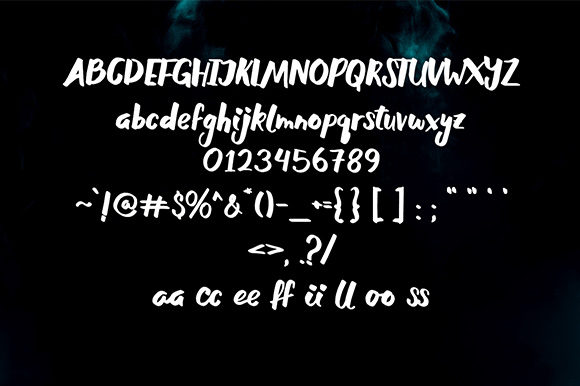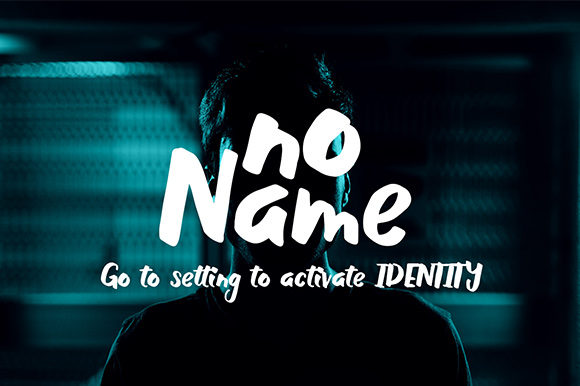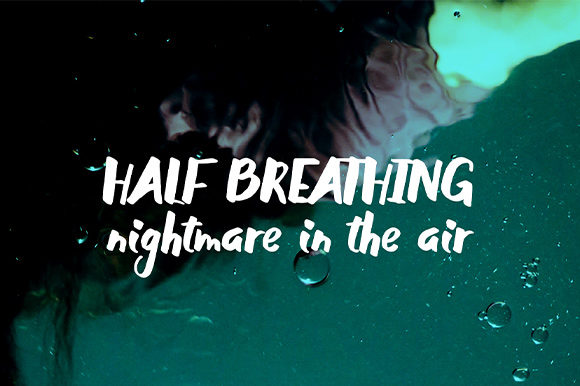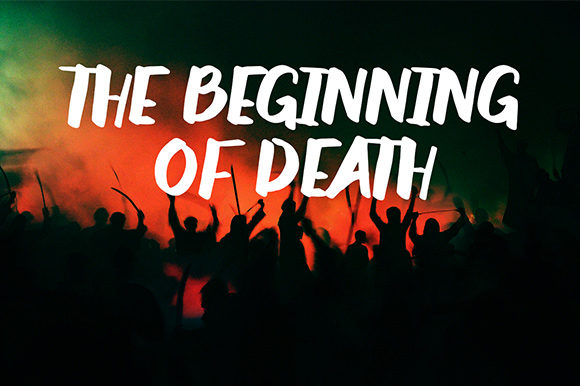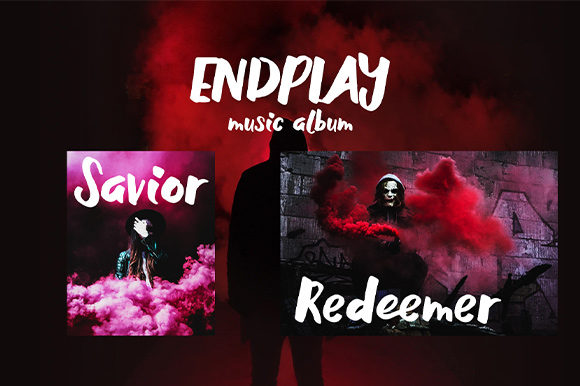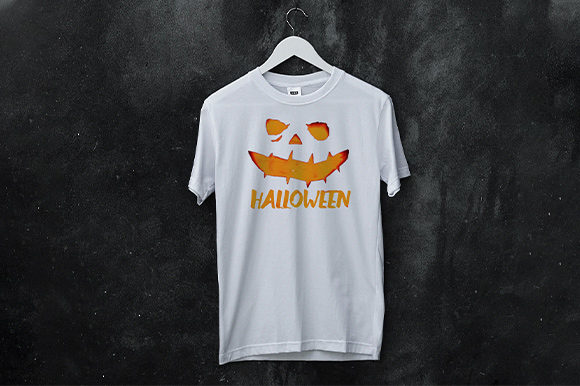
Discover the Elegance of Garotte Font: Elevate Your Designs to New Heights
Are you on the hunt for a font that exudes sophistication, elegance, and a touch of modern flair? Look no further than the Garotte Font. This exquisite handwritten font is meticulously crafted to capture the essence of classy calligraphic influences while maintaining a fresh and contemporary feel. In this article, we’ll dive into the world of Garotte Font, exploring its features, benefits, and the endless possibilities it offers for designers and crafters alike.
The Birth of Garotte: A Masterful Design
Garotte is more than just a font; it’s a masterpiece that combines traditional calligraphic elements with modern design sensibilities. Its creator, with a keen eye for detail and a deep understanding of typographic elegance, has brought forth a font that is both timeless and trendy. Each letter in Garotte is a testament to the art of handwriting, meticulously designed to convey a sense of luxury and refinement.
Classy Calligraphic Influences Meet Modern Sensibilities
One of the standout features of Garotte Font is its ability to strike a perfect balance between classic calligraphy and contemporary design. It boasts flowing lines, elegant curves, and a sophisticated charm that is reminiscent of traditional calligraphic scripts. Yet, it does so with a lightness and airiness that makes it distinctly modern. This unique blend makes Garotte an incredibly versatile font, suitable for a wide range of design projects, from wedding invitations and luxury branding to high-end advertising and editorial content.
Why Fall in Love with Garotte?
So, what makes Garotte Font so special? Here are a few reasons why designers and crafters are falling in love with it:
- Elegance and Sophistication: Garotte brings an unparalleled level of elegance to any project. Its classy appearance can instantly elevate the perceived value and aesthetic appeal of your designs.
- Versatility: Whether you’re working on a digital platform or a print project, Garotte adapts beautifully. It’s perfect for headings, titles, and any place you want to make a statement.
- Readability: Despite its elegant and cursive nature, Garotte maintains excellent readability, making it suitable for both display purposes and longer texts.
- Contemporary Appeal: In a world where design trends are constantly evolving, Garotte’s modern twist ensures it remains relevant and fresh.
Bring Your Projects to the Highest Levels with Garotte
Integrating Garotte Font into your projects is a surefire way to give them a competitive edge. Here are some ideas on how to make the most of this stunning font:
- Branding and Logo Design: Use Garotte to create a memorable brand identity that speaks of luxury and quality.
- Wedding and Event Stationery: Add a touch of elegance to your wedding invitations, menus, and event programs.
- Packaging Design: Stand out on the shelves with sophisticated packaging that features Garotte.
- Digital Content: Enhance your website, blog, or social media graphics with a font that commands attention and exudes professionalism.
Garotte Font is a game-changer for designers and crafters looking to infuse their projects with a dose of elegance, sophistication, and modernity. Its exquisite design, versatility, and readability make it an invaluable addition to any creative arsenal. Whether you’re aiming to create stunning visual content, elevate your brand’s aesthetic, or simply explore new design possibilities, Garotte is sure to exceed your expectations. So, fall in love with Garotte and watch your designs soar to new heights of creativity and excellence.